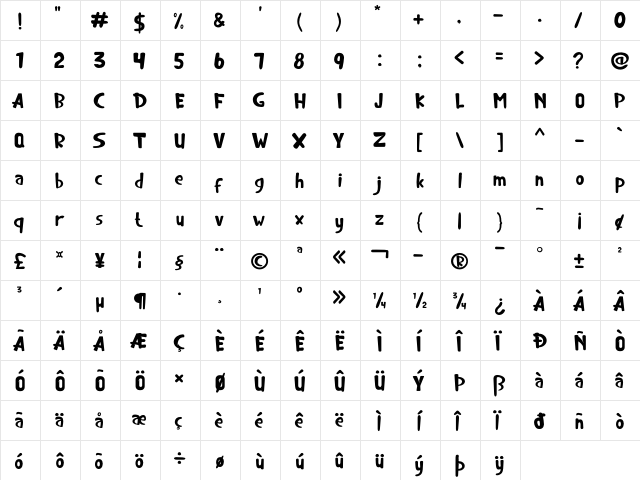
Treno is love Regular
| Designer | Sya'dan Ismail Rosyad |
Design Context for Treno is love Typeface
Treno is love is a composed and adaptable typeface that performs quietly and consistently across a wide range of design contexts.